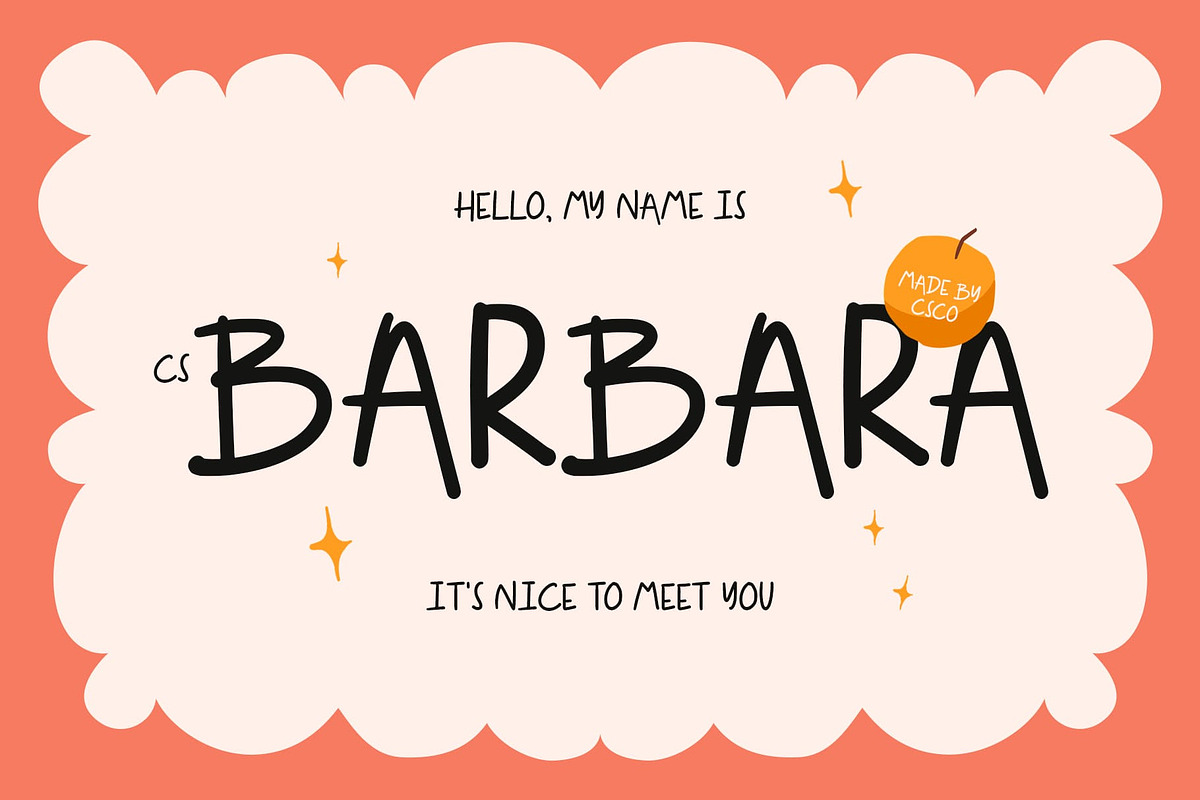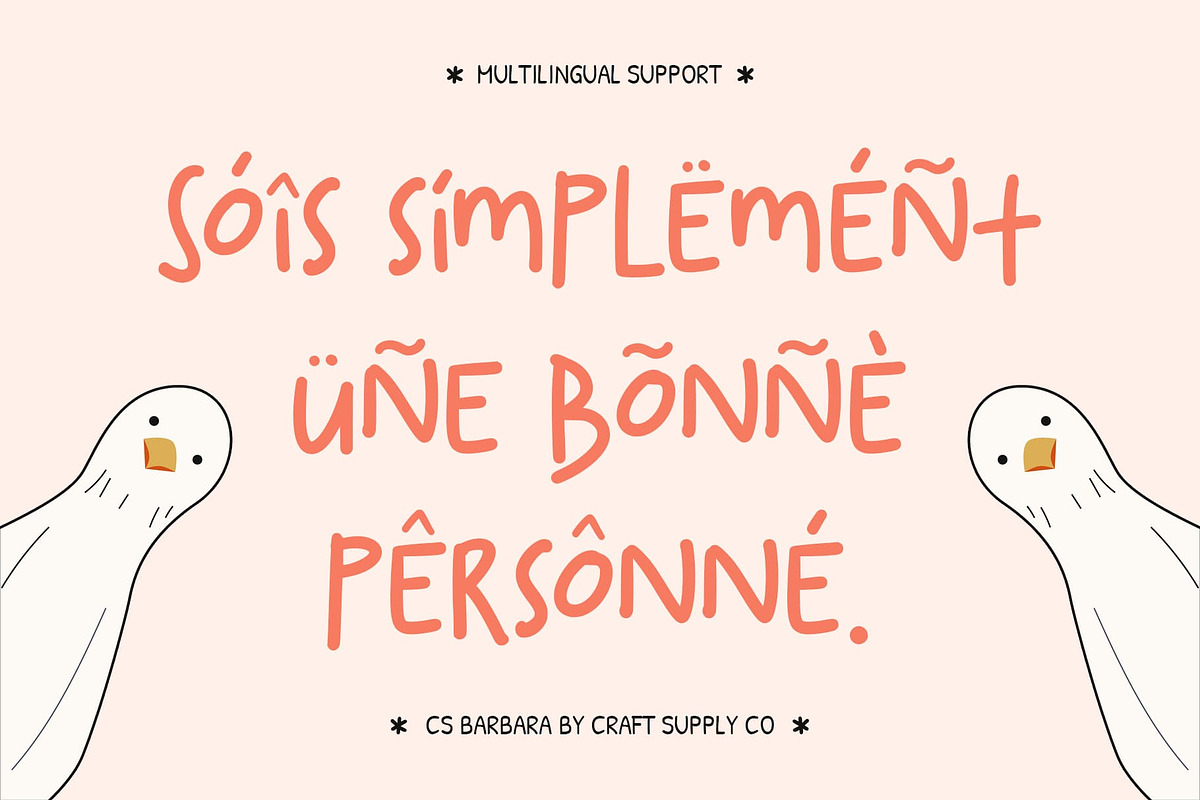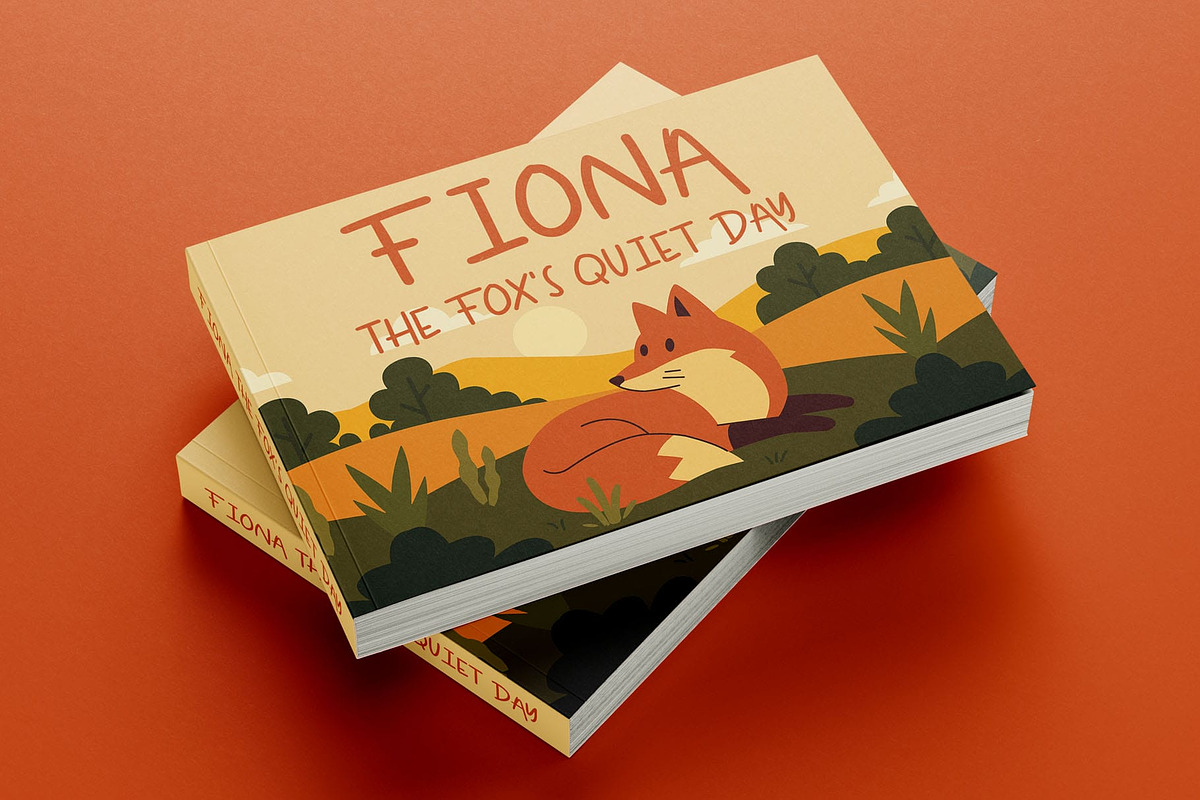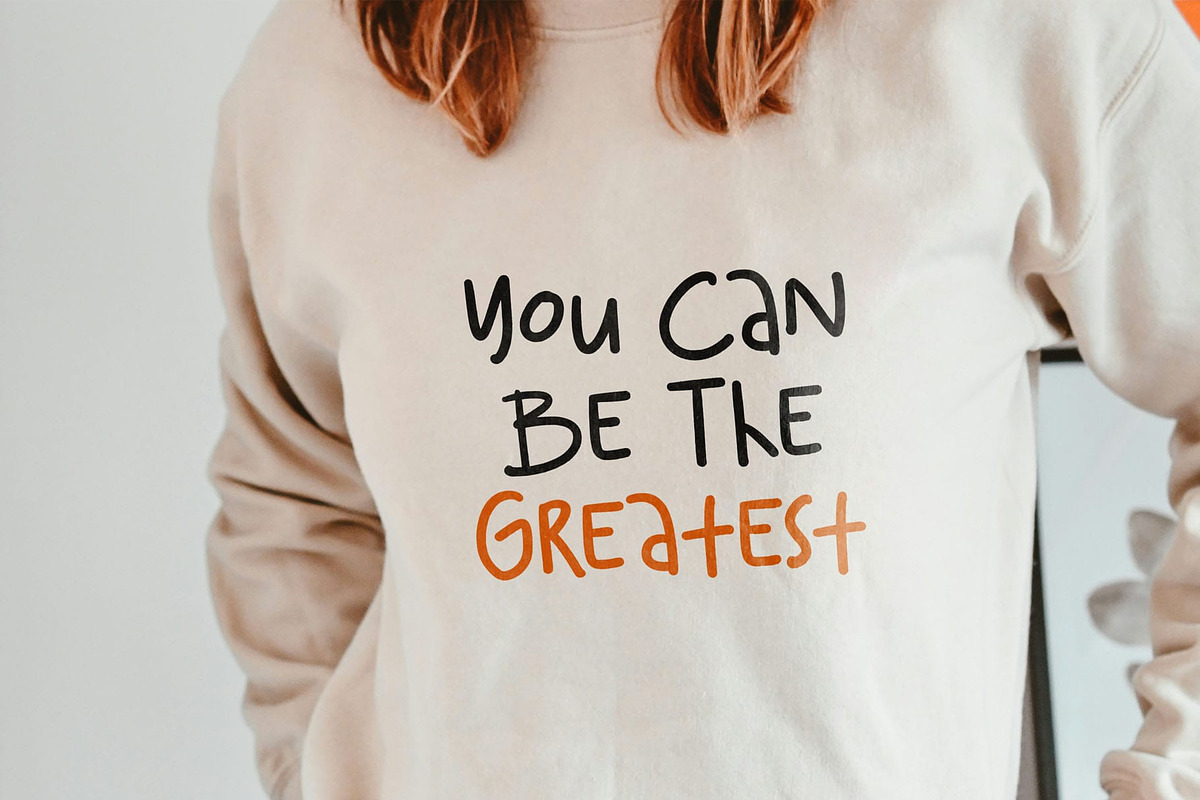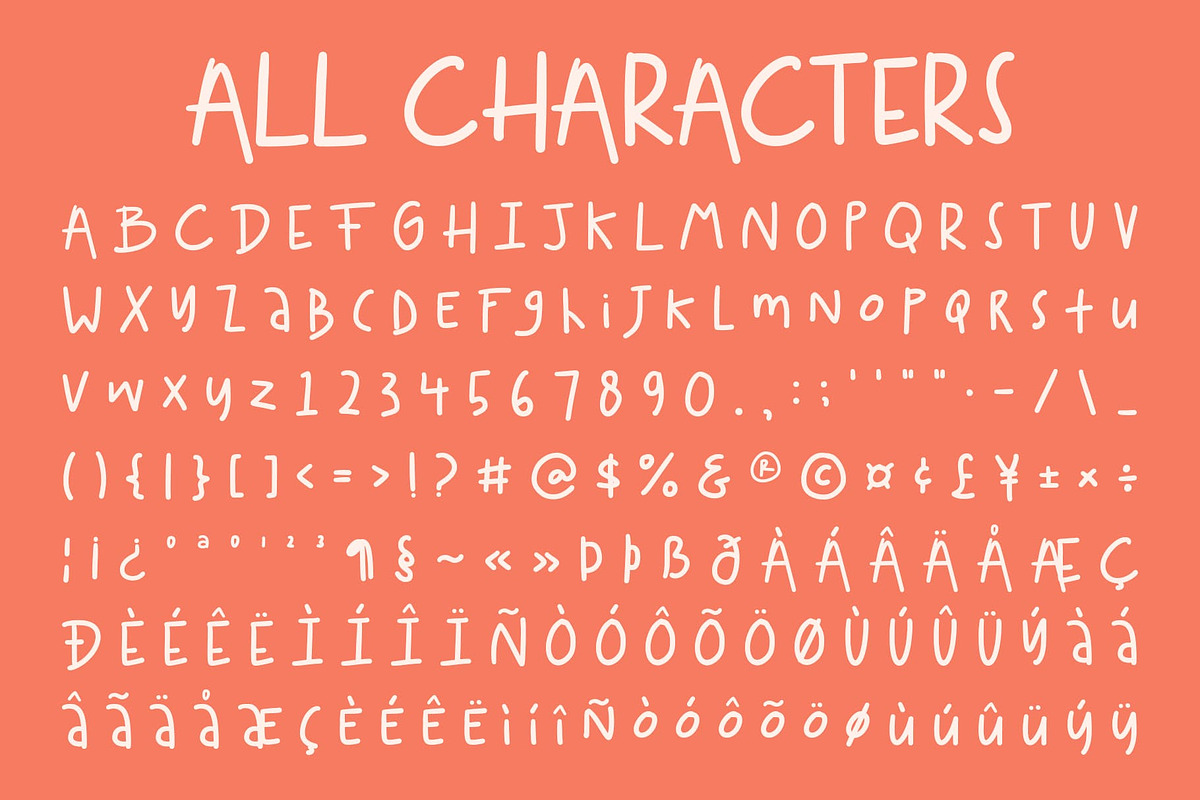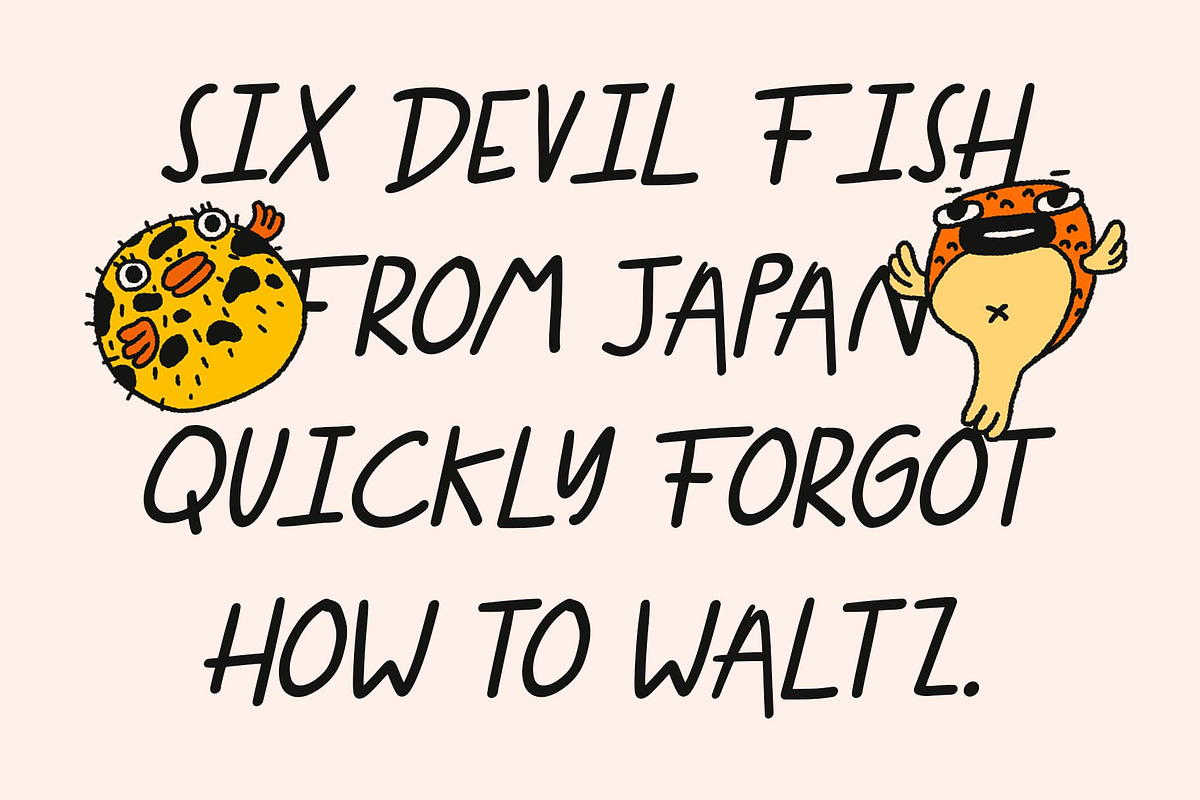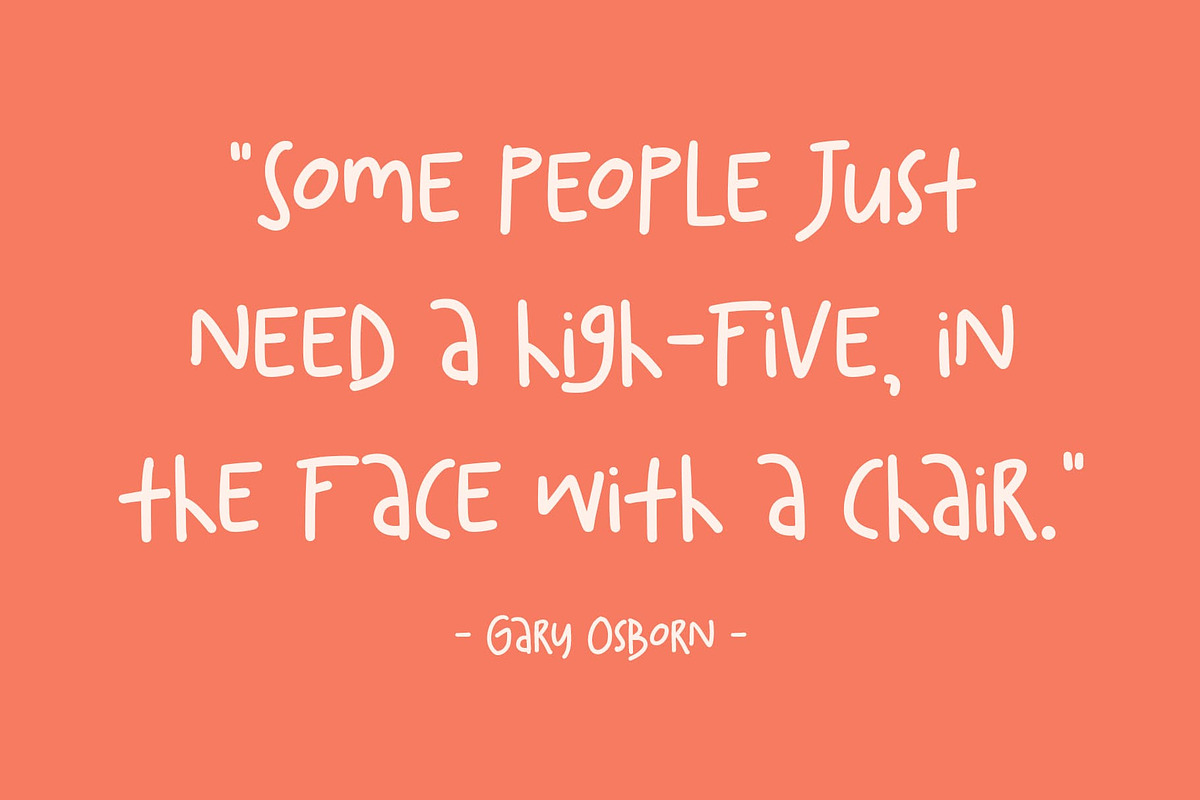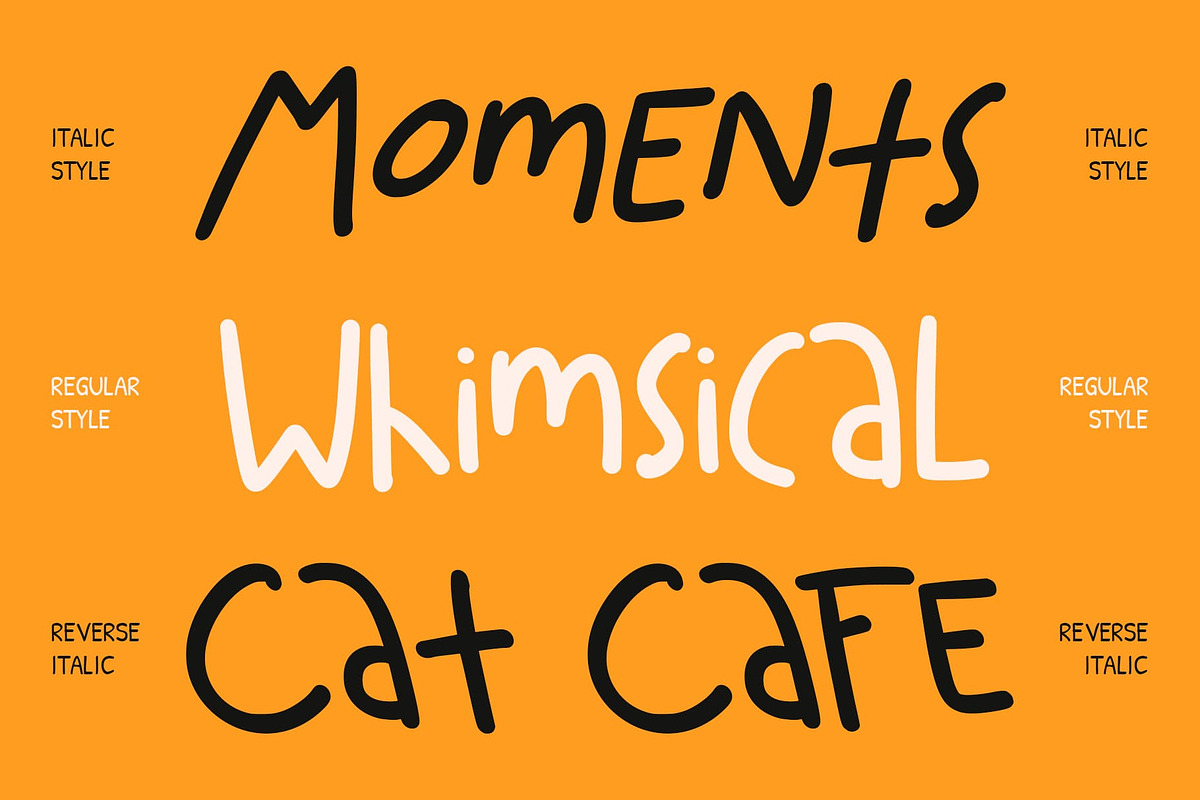
CS Barbara – Fun Handwritten Font
CS Barbara – A Fun Handwritten Font Full of Energy: Playful Handwritten Font with Rounded Strokes
Playful Energy in Every Stroke CS Barbara is a handwritten font that radiates fun and positivity. With its rounded look and flowing strokes, it feels approachable and lively, making it perfect for projects that aim to capture a youthful, joyful spirit. The natural hand-drawn feel brings warmth and character to any design.
Friendly Shapes for Cute and Casual Designs The font’s friendly shapes and smooth curves make it especially fitting for playful, lighthearted applications. Its approachable design works beautifully in youth branding, children’s projects, and cute designs that need a touch of charm and personality.
Perfect for Greeting Cards and Creative Branding CS Barbara adds a welcoming and cheerful tone to greeting cards, invitations, or celebratory designs. For branding, it helps businesses convey friendliness and accessibility, whether for casual cafes, kids’ products, or lifestyle brands targeting young and creative audiences.
Versatile for Casual and Everyday Projects While inherently playful, CS Barbara remains versatile enough to adapt across a range of uses. From posters to packaging and digital content, it ensures a fun, casual aesthetic that always feels modern and fresh.
- CS Barbara Regular
- CS Barbara Italic
- CS Barbara Reverse Italic